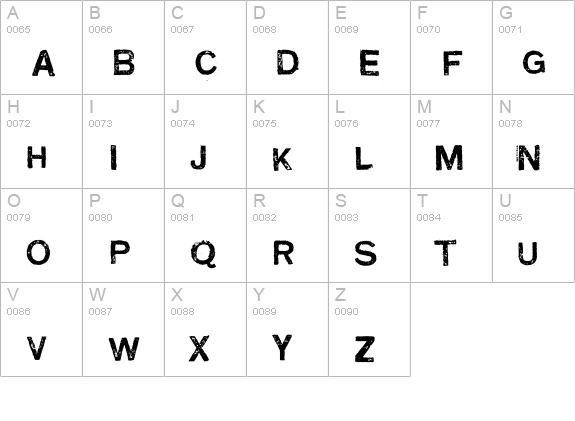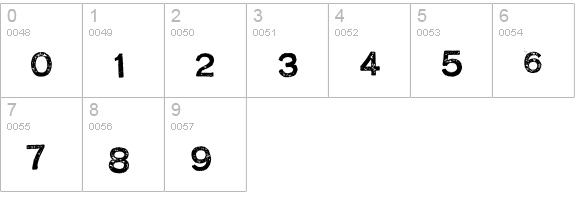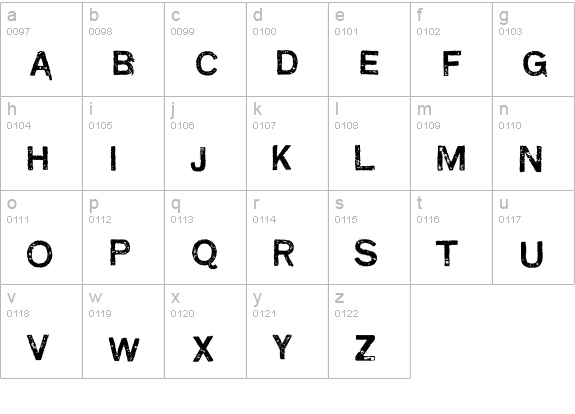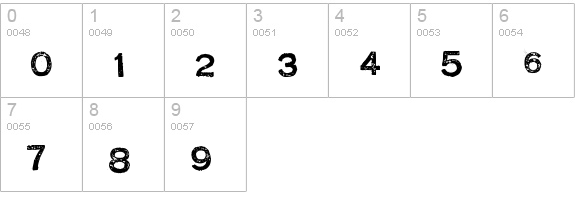
Carimbo font is a versatile and elegant typeface that exudes a sense of sophistication and style. With its bold lines and smooth curves, Carimbo is perfect for creating eye-catching designs that demand attention. This font brings a touch of modernity and class to any project, making it suitable for a wide range of applications. The best part about Carimbo font is that it is completely free to download at FontsMarket.com. You can easily access this unique and captivating font to enhance your designs and make them stand out from the crowd. Don't miss the opportunity to add Carimbo font to your collection and elevate your creative projects to the next level.